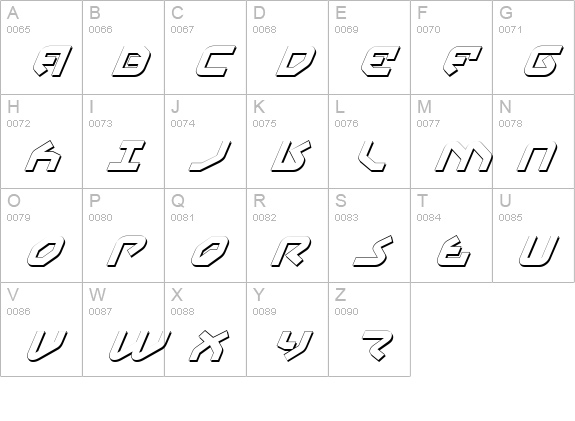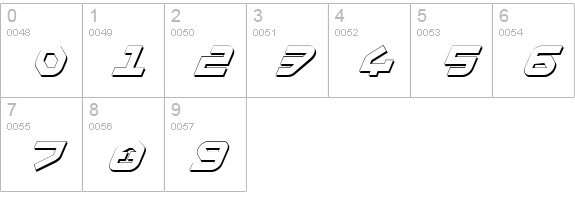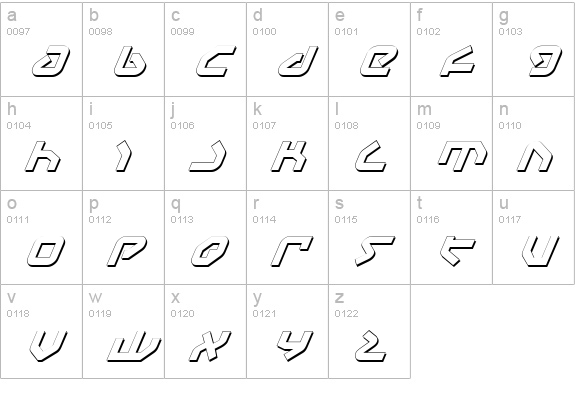
Yahren Shadow Italic is a distinctive, italic variant in the Yahren typeface family \xE2\x80\x94 well suited to design and typography projects.
Yahren Shadow Italic font exudes elegance and sophistication with its sleek and stylish design. The italicized characters add a touch of modernity and flair to any text, making it perfect for various creative projects. The font's unique shadow effect adds depth and dimension, creating a visually striking appearance. Best of all, Yahren Shadow Italic font is completely free! You can easily download it at FontsMarket.com and enhance your designs with this beautiful typeface. Whether you're working on a branding project, editorial design, or any other creative endeavor, Yahren Shadow Italic font will surely make a bold statement and elevate your work to the next level. Don't miss out on this fantastic opportunity to add a touch of sophistication to your projects with this free font.